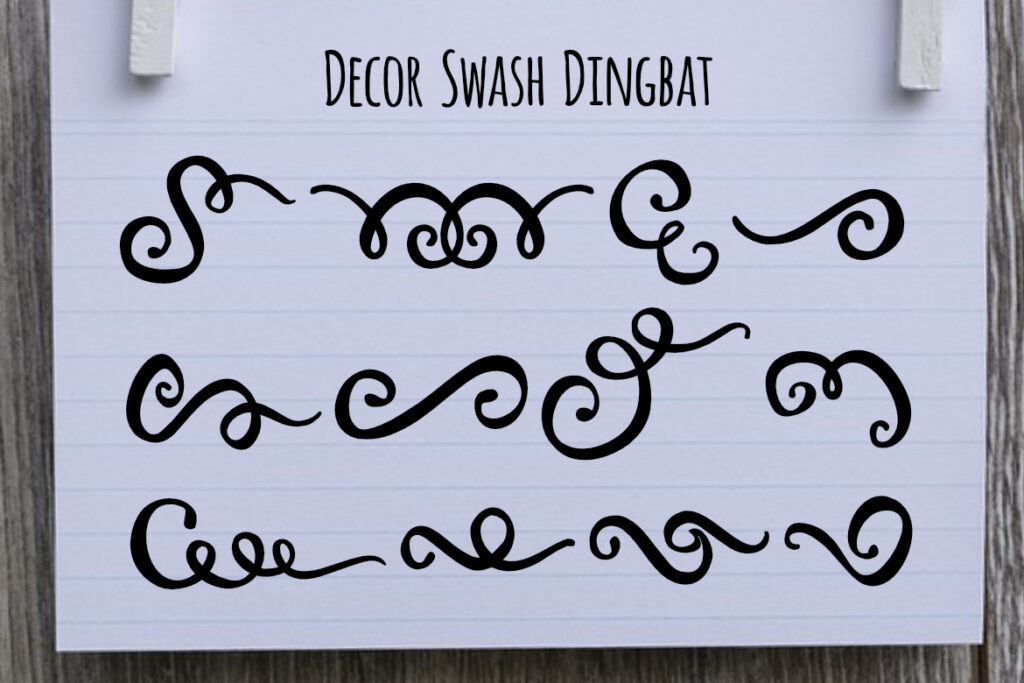
Decor Swash Dingbat Font: Elevate Your Designs with Cute and Fun Elements
In the world of graphic design, finding the perfect elements to enhance your creations can be a daunting task. However, with the Decor Swash Dingbat Font, you can add a touch of whimsy and sophistication to your designs. This delightful dingbat set is perfect for anchoring your designs in stunning and well-crafted design assets. In this article, we’ll explore the features and benefits of the Decor Swash Dingbat Font and how it can elevate your designs.
A dingbat font is a type of font that features graphical symbols, shapes, and icons rather than traditional letters and numbers. These fonts are often used in graphic design to add visual interest and create unique compositions. Dingbat fonts can range from simple shapes to intricate illustrations, making them a versatile tool for designers.
The Decor Swash Dingbat Font is a cute and fun dingbat set that features a wide range of decorative elements, including swashes, flourishes, and shapes. This font is perfect for designers who want to add a touch of elegance and playfulness to their designs.
Features of Decor Swash Dingbat Font
The Decor Swash Dingbat Font boasts an impressive set of features that make it an ideal choice for designers. Some of its notable features include:
- Wide range of decorative elements: The font features a vast collection of decorative elements, including swashes, flourishes, shapes, and icons.
- Cute and fun designs: The font’s designs are playful, whimsical, and perfect for adding a touch of personality to your designs.
- High-quality illustrations: The font features high-quality illustrations that are intricately designed and visually appealing.
- Scalable: The font is scalable, making it perfect for use in various design projects, from business cards to billboards.
Design Ideas Using Decor Swash Dingbat Font
The Decor Swash Dingbat Font can be used in a variety of design projects. Here are some design ideas to get you started:
- Wedding invitations: Use the font to create beautiful and elegant wedding invitations.
- Social media graphics: Use the font to create eye-catching social media graphics.
- Business cards: Use the font to create unique and memorable business cards.
- Brochures: Use the font to create informative and visually appealing brochures.
- Posters: Use the font to create striking and effective posters.
In conclusion, the Decor Swash Dingbat Font is a versatile and creative font that can elevate your designs to the next level. With its wide range of decorative elements, cute and fun designs, and high-quality illustrations, this font is perfect for designers who want to add a touch of whimsy and sophistication to their designs. Whether you’re designing a wedding invitation or a social media graphic, the Decor Swash Dingbat Font is a great choice.